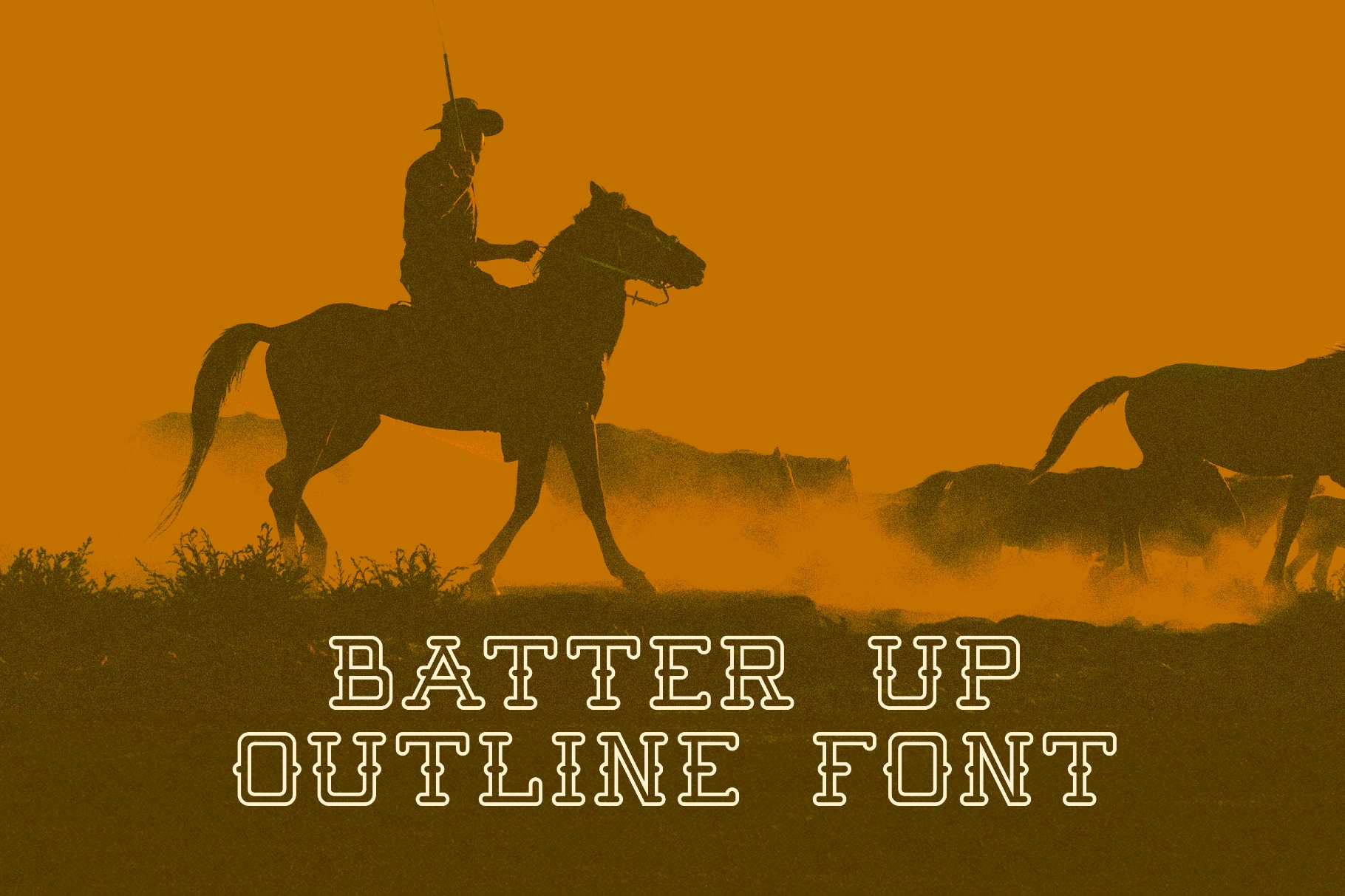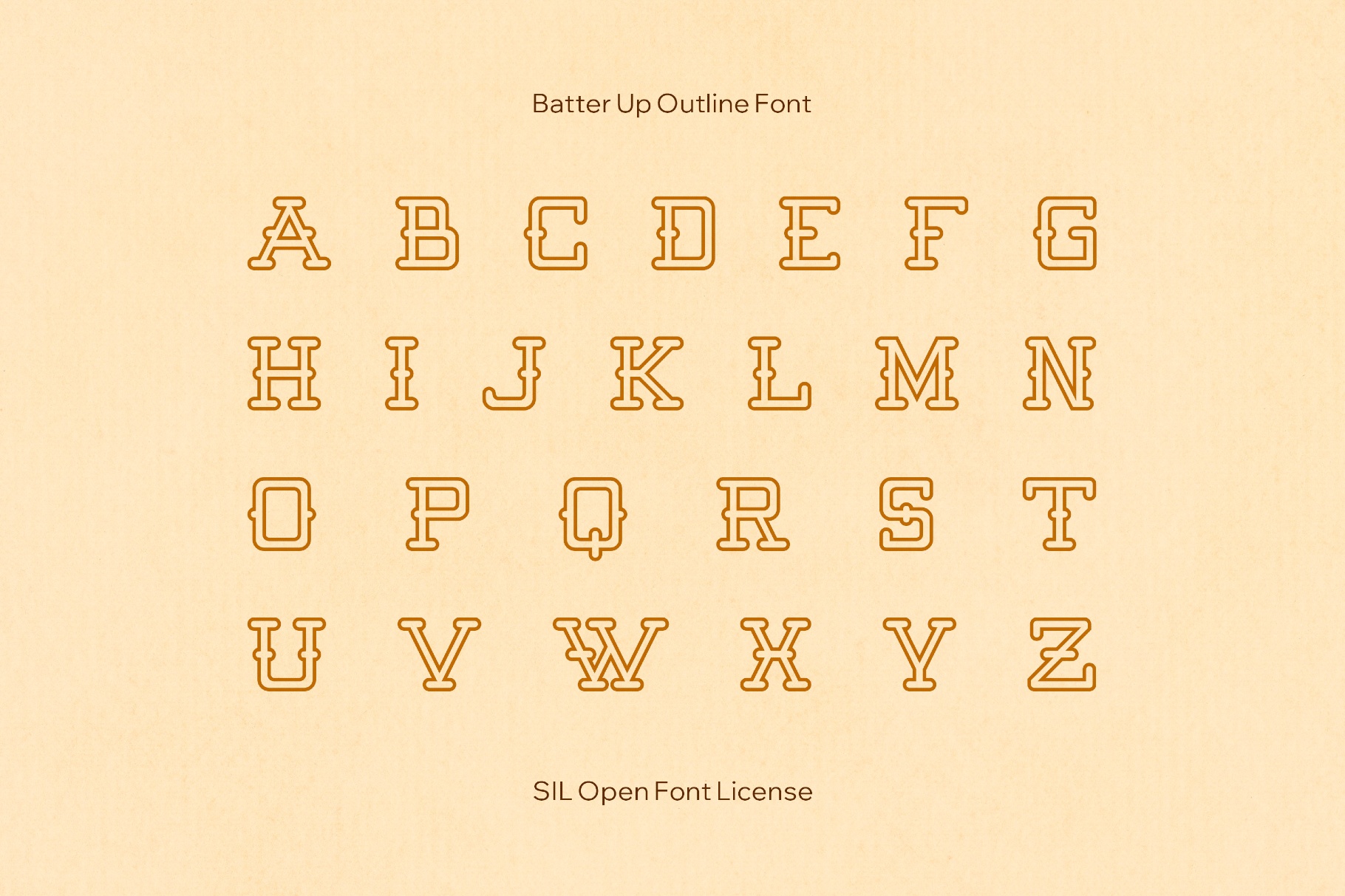
Batter Up Outline Font
Batter Up Outline is an all-caps slab serif with a loud ballpark voice, drawn as a bold outline cut with rounded corners and compact, square proportions. The letters stack like jersey lettering and scoreboard titles, so every word is ready for banners, fan gear, and big, punchy headlines rather than body copy. It is also perfect for sports branding, team merch, event posters, jersey-style numbers, stickers, packaging accents, and social media graphics.